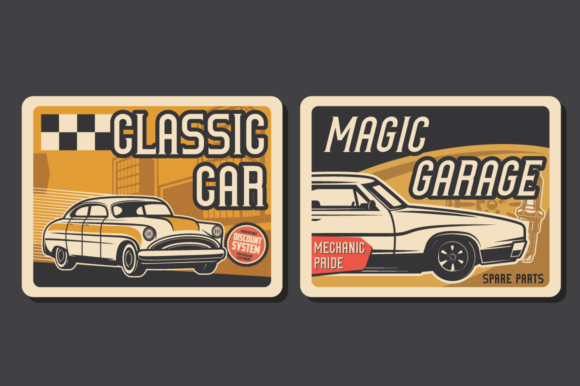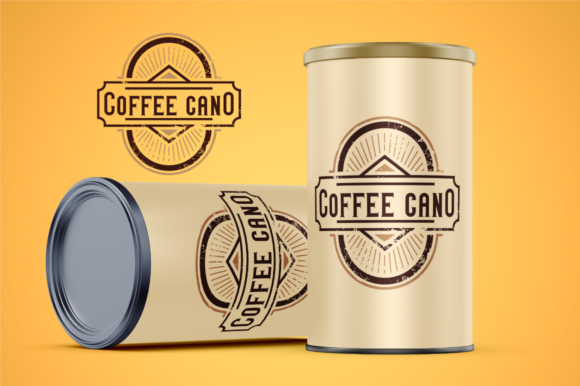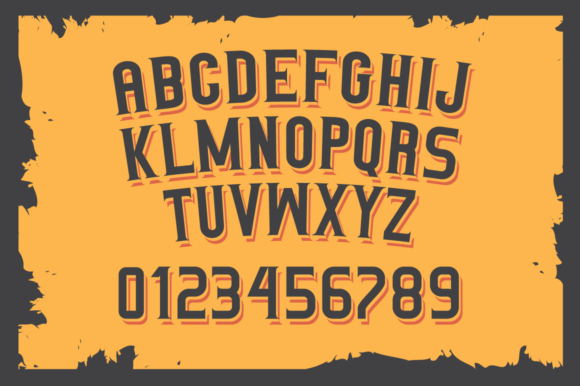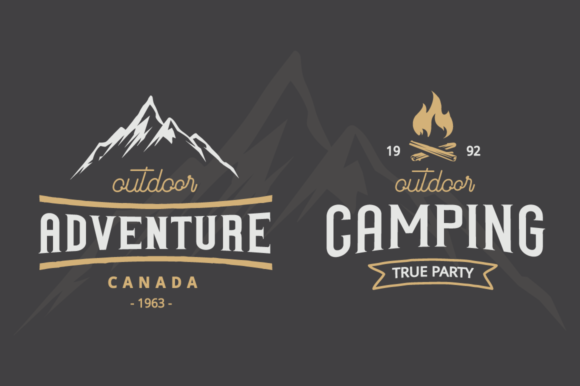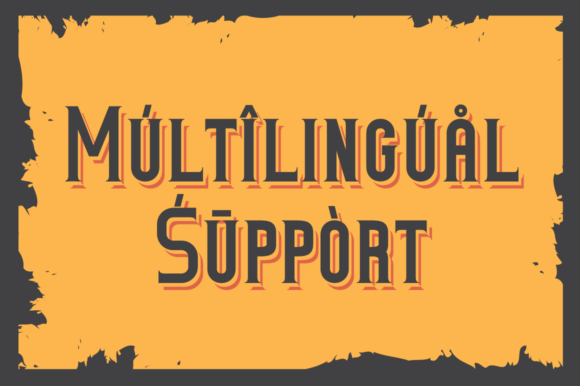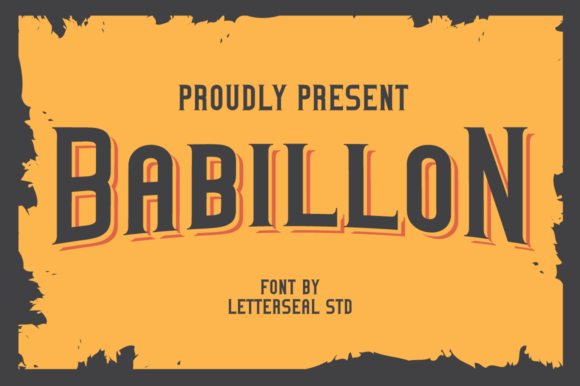
Babillon Font: The Ultimate Display Font for Bold and Sophisticated Designs
In the world of typography, a font can make or break a design. A well-crafted font can elevate a brand’s identity, convey its message, and leave a lasting impression on its audience. One such font that has been making waves in the design community is Babillon Font. This masterfully designed display font is a true must-have for designers and crafters looking to add a touch of sophistication and boldness to their work.
The Characteristics of Babillon Font
Babillon Font looks bold, yet sophisticated, making it a versatile choice for various design applications. Its chunky and extended characters are particularly adept at grabbing attention, making it perfect for logos, branding, packaging design, and more. The font’s unique characteristics include:
- Bold and Sophisticated: Babillon Font exudes confidence and elegance, making it ideal for designs that require a strong visual statement.
- Chunky and Extended Characters: The font’s chunky and extended characters provide excellent legibility, even at large sizes, making it perfect for headlines, titles, and logos.
- High Versatility: Babillon Font can be used in various design applications, from print to digital, and is suitable for a wide range of industries, including fashion, luxury, and entertainment.
Why Designers and Crafters Love Babillon Font
Designers and crafters love Babillon Font for its unique blend of boldness and sophistication. Here are some reasons why:
- Easy to Read: Despite its bold and chunky design, Babillon Font is surprisingly easy to read, making it perfect for designs that require a clear and concise message.
- Highly Customizable: Babillon Font can be easily customized to fit a brand’s unique identity, making it a great choice for designers who want to create a bespoke look.
- Time-Saving: With Babillon Font, designers can save time and effort, as the font’s bold and eye-catching design eliminates the need for extensive styling and formatting.
How to Use Babillon Font in Your Designs
Babillon Font is a versatile font that can be used in various design applications. Here are some ideas to get you started:
- Logos and Branding: Use Babillon Font to create bold and memorable logos that make a lasting impression on your audience.
- Packaging Design: Add a touch of sophistication to your packaging designs with Babillon Font, perfect for luxury brands and high-end products.
- Headlines and Titles: Use Babillon Font to create eye-catching headlines and titles that grab attention and draw the reader in.
Tips and Tricks for Getting the Most Out of Babillon Font
To get the most out of Babillon Font, here are some tips and tricks to keep in mind:
- Experiment with Colors: Babillon Font looks great in bold and bright colors, so don’t be afraid to experiment and find the perfect hue for your design.
- Play with Sizes: Babillon Font is designed to be bold and eye-catching, so try using it in different sizes to create visual interest and hierarchy.
- Pair it with Other Fonts: Babillon Font pairs well with other fonts, so try combining it with a sans-serif font for a bold and modern look.
In conclusion, Babillon Font is a masterfully designed display font that is a true must-have for designers and crafters. Its bold and sophisticated design, chunky and extended characters, and high versatility make it perfect for a wide range of design applications. Whether you’re looking to create a bold logo, eye-catching headline, or sophisticated packaging design, Babillon Font is the perfect choice. So why wait? Get your hands on Babillon Font today and take your designs to the next level!